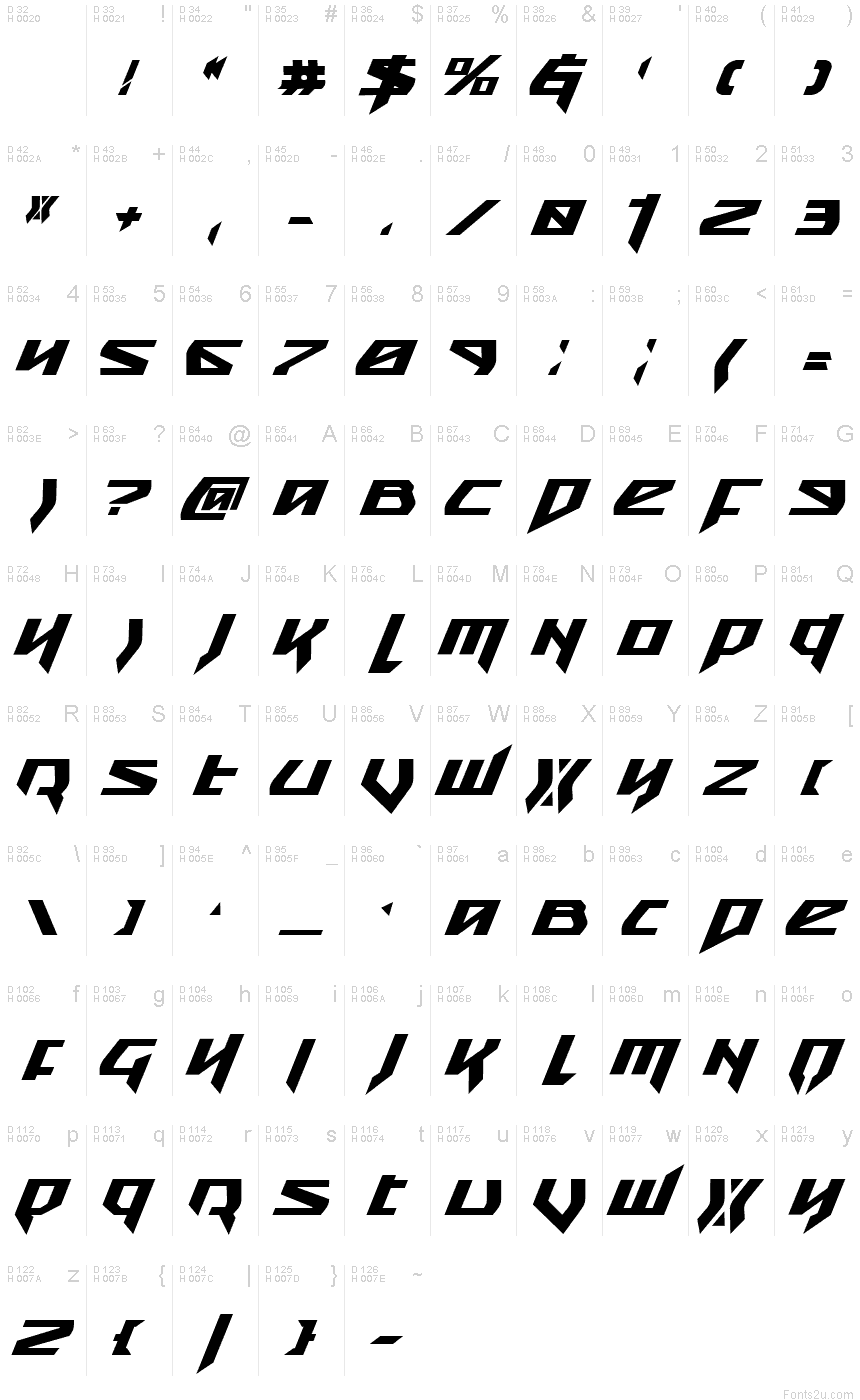
Snubfighter Bold Italic
Snubfighter Bold Italic, created by Erikstormtrooper of Iconian Fonts, is a free futuristic display font with broad, forward-leaning letters and sharply cut edges. Repeated diagonal notches make the forms look fast and machine-built.
A gaming hardware brand could use this aggressive geometry for logos, packaging, and event graphics, particularly for products associated with speed, combat, or advanced machinery. Across racing merchandise and science-fiction entertainment, the recurring wedges can become part of a product's visual emblem rather than acting as ordinary lettering.